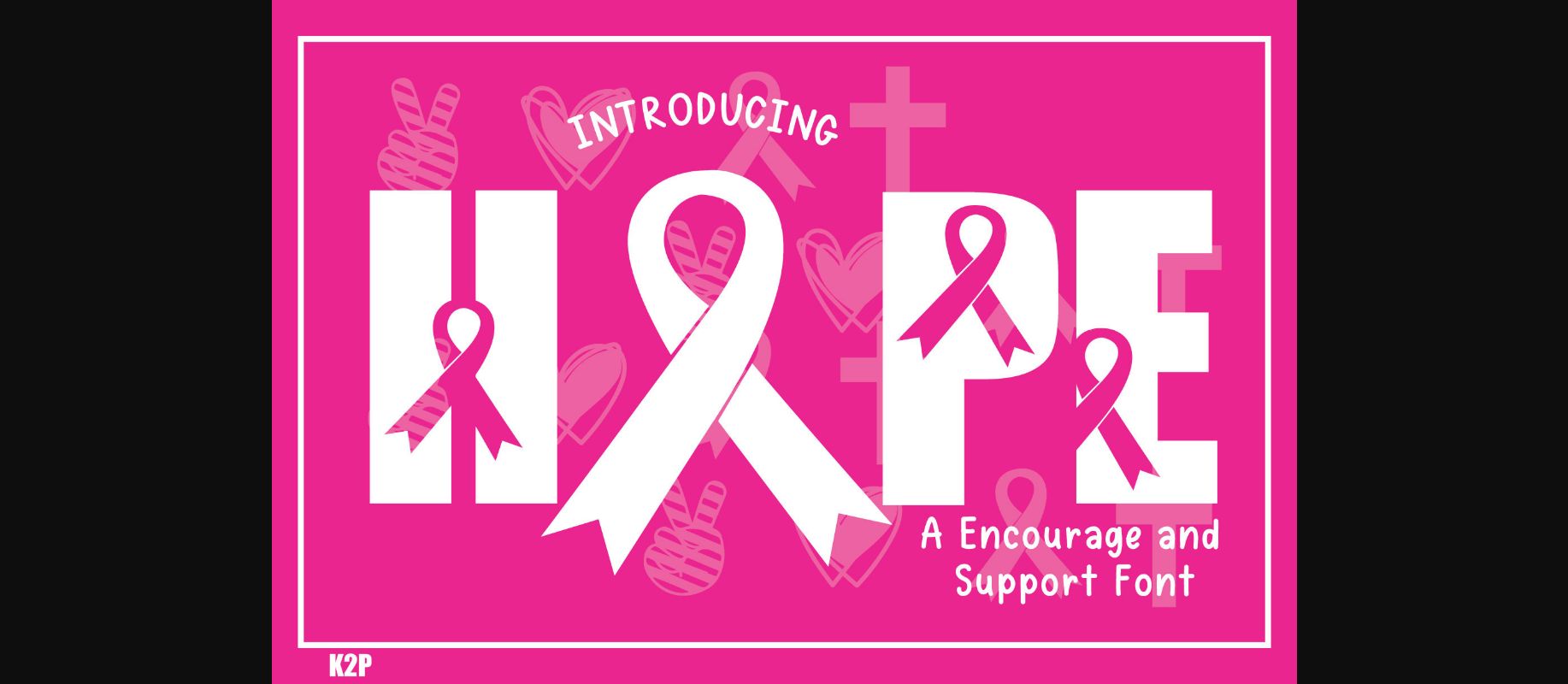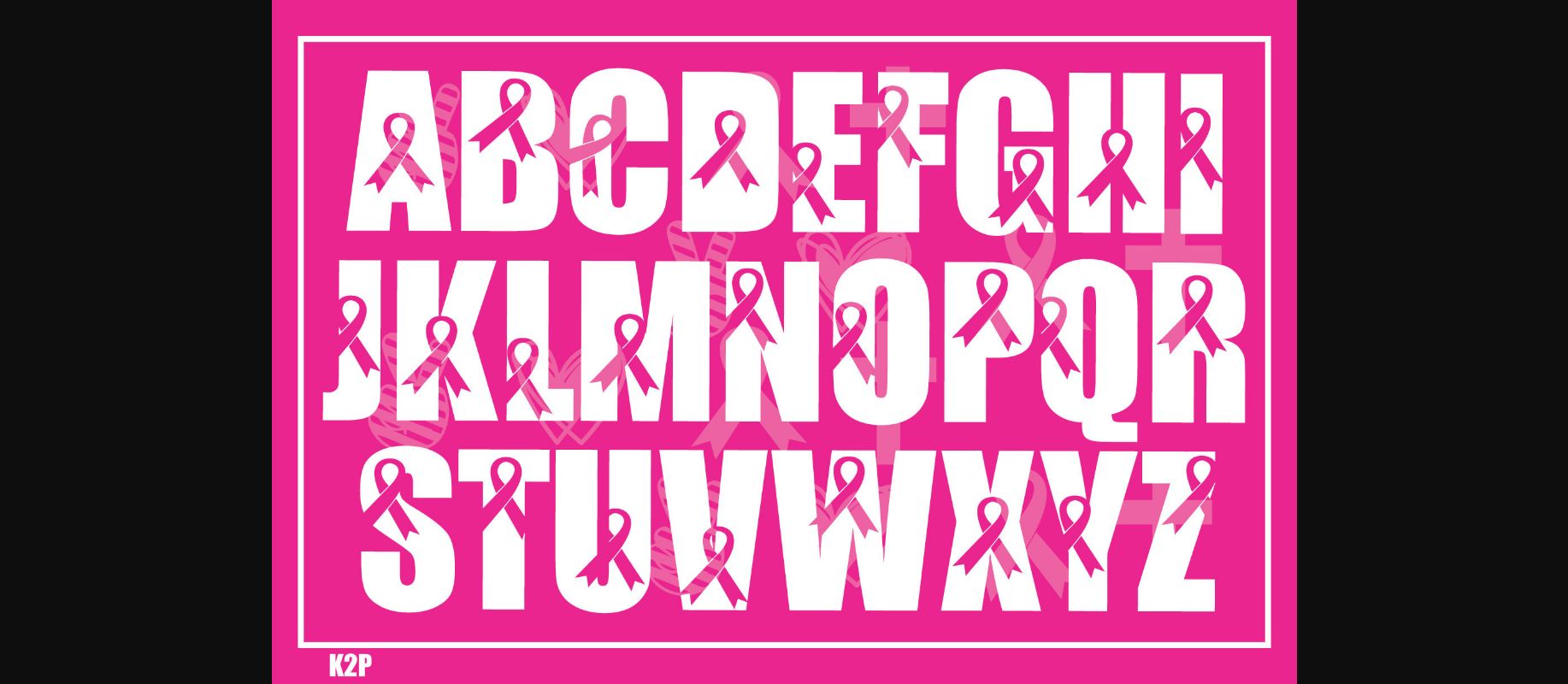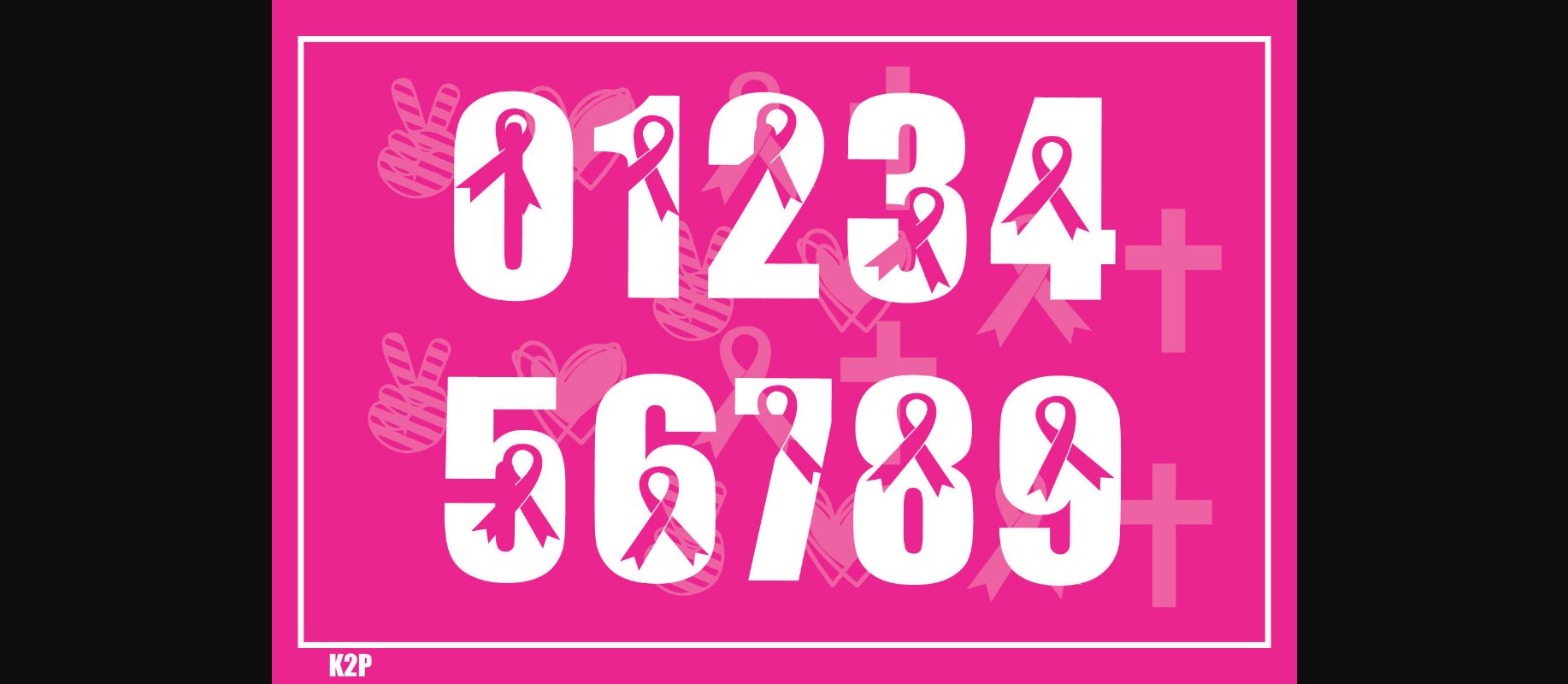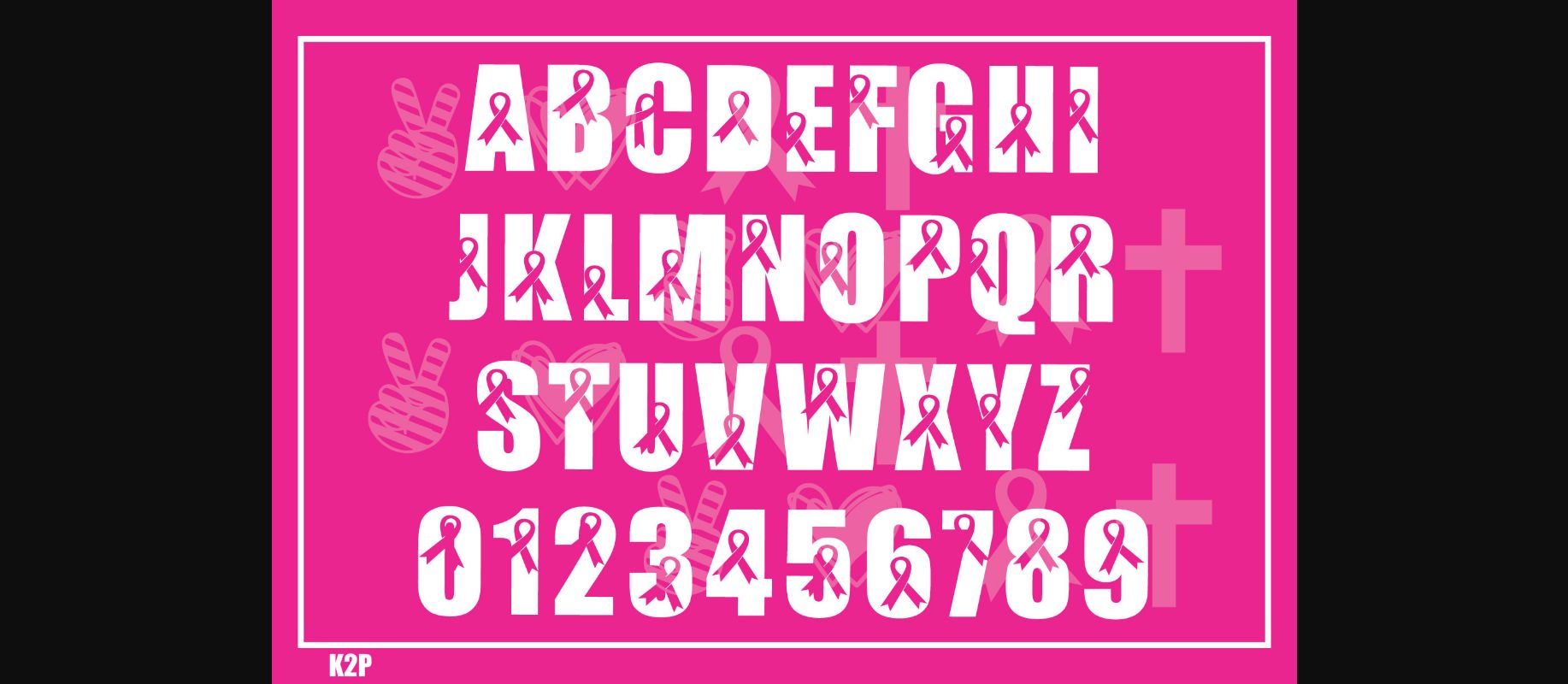
Hope Font
About Hope Font
Hope is a thick lettered and incredibly unique decorative font. It can be used for various design ideas, particularly those related to the projects that seek to bring support for people that are suffering of cancer. This font is PUA encoded which means you can access all of the glyphs and swashes with ease!